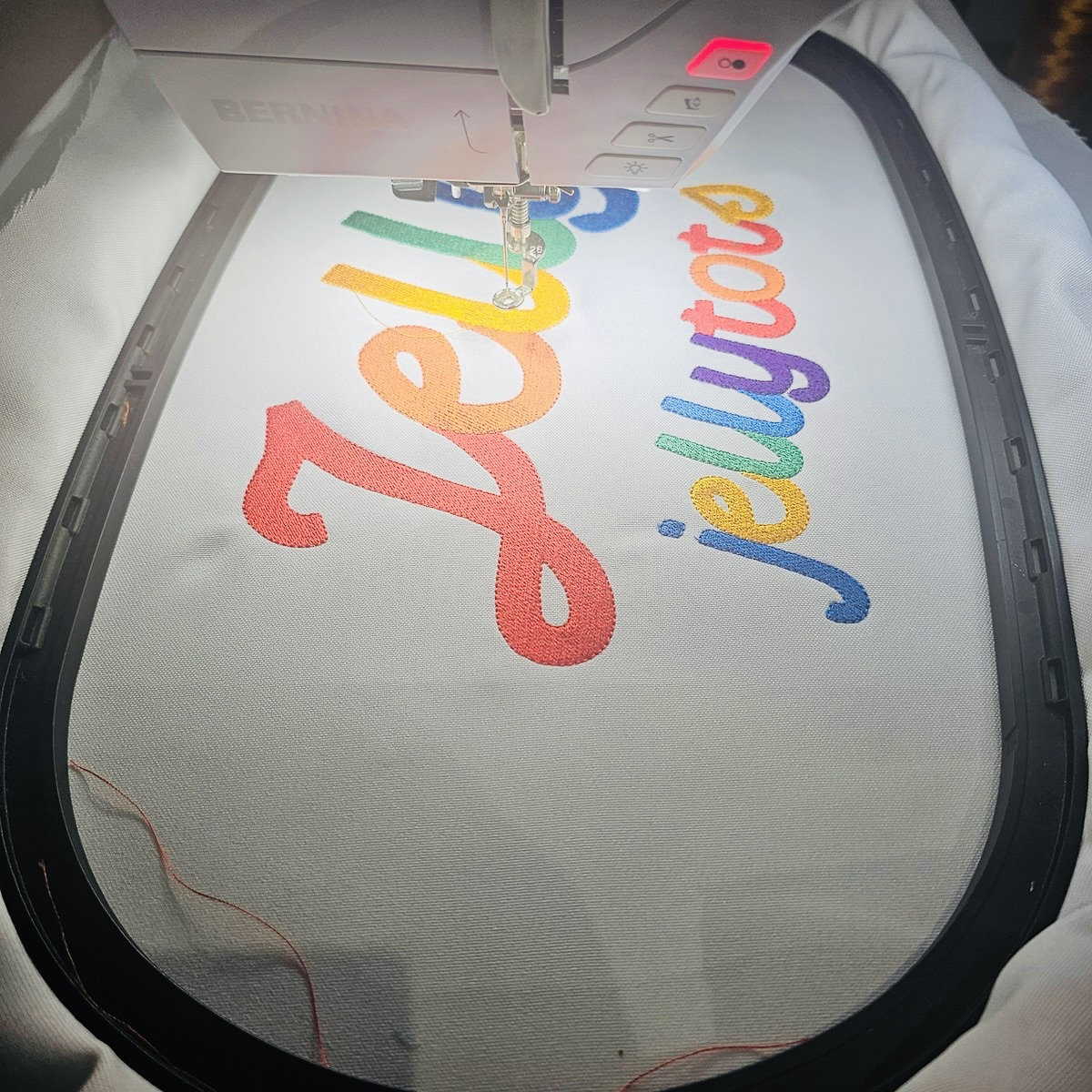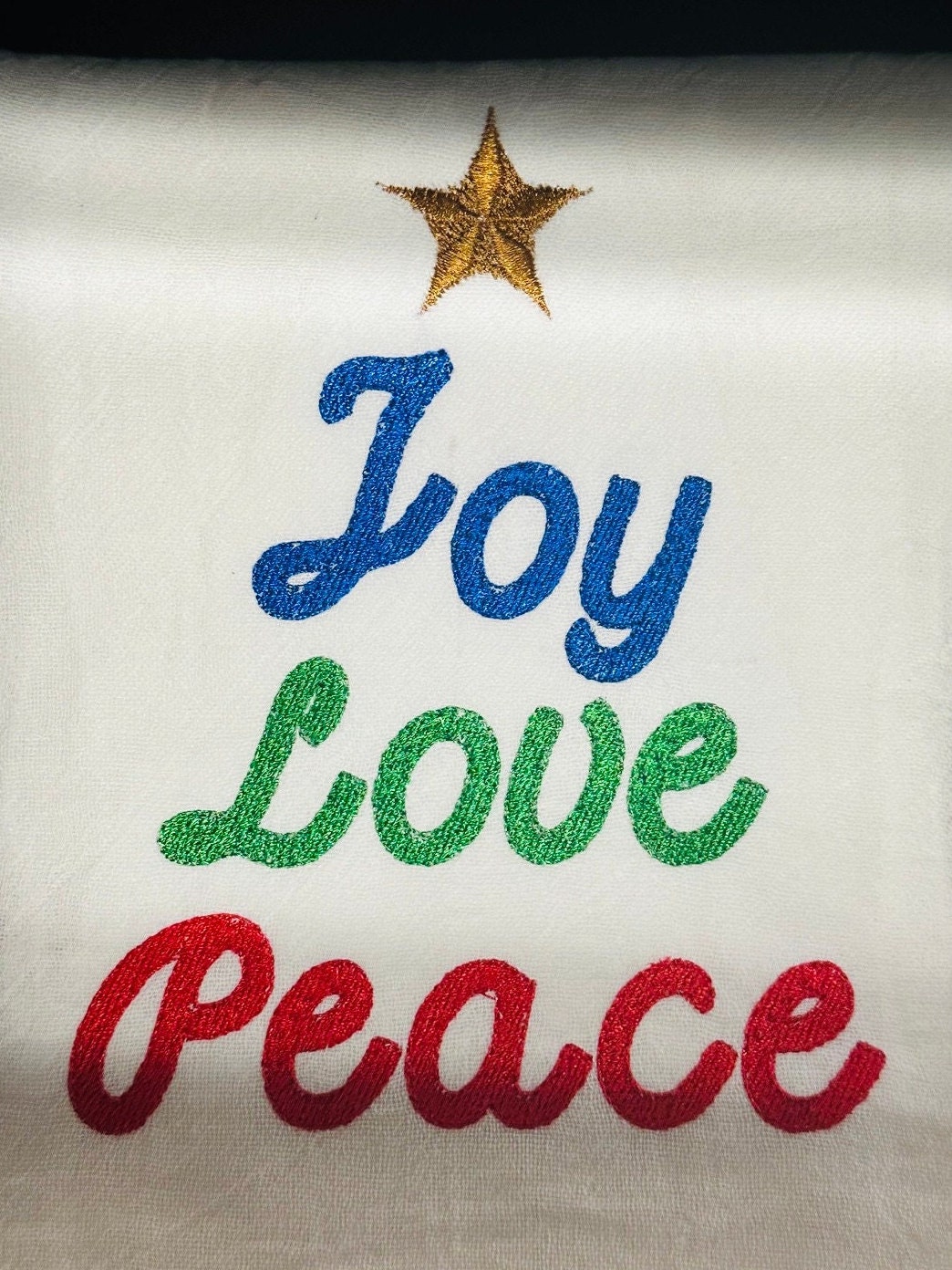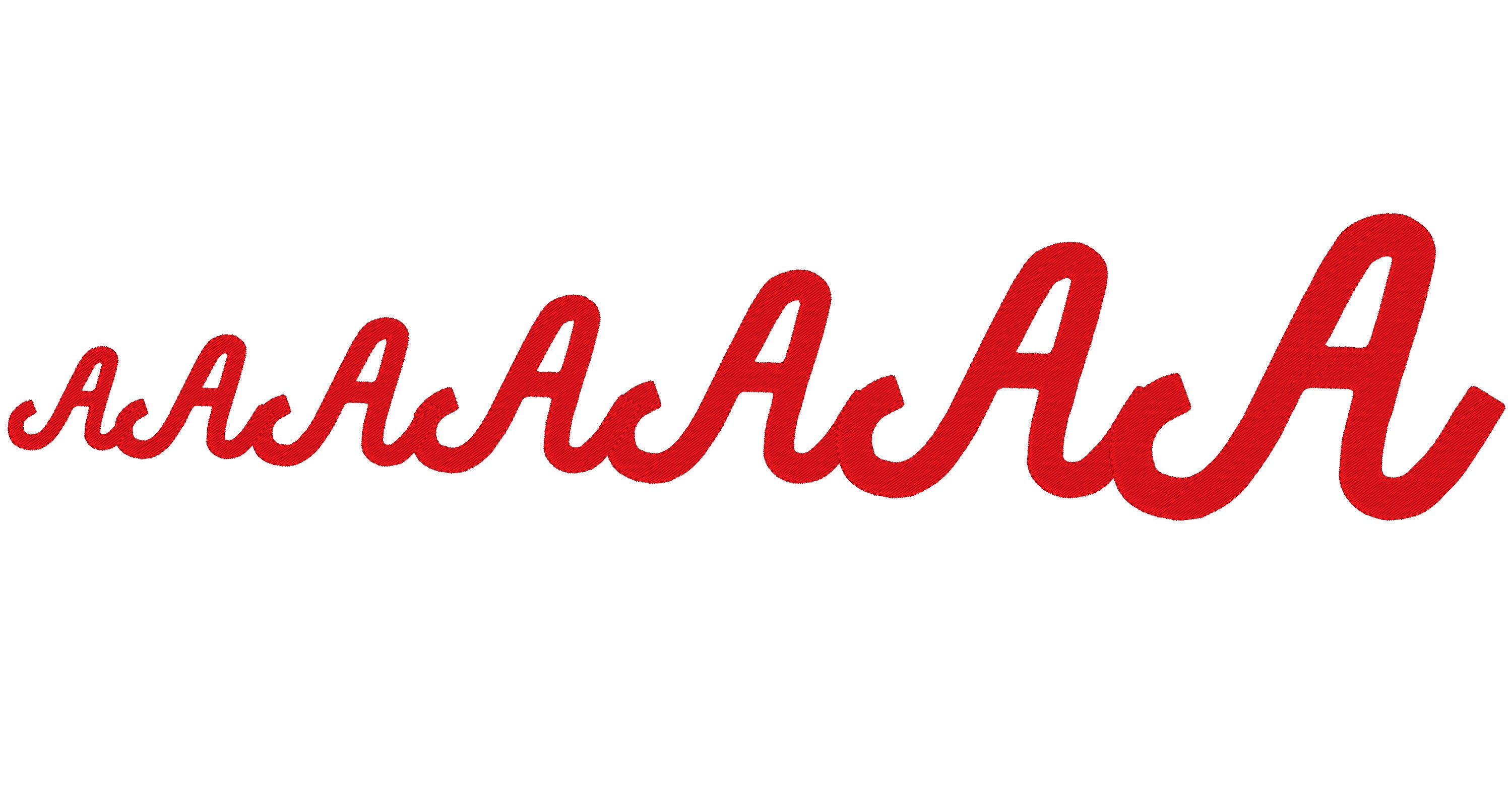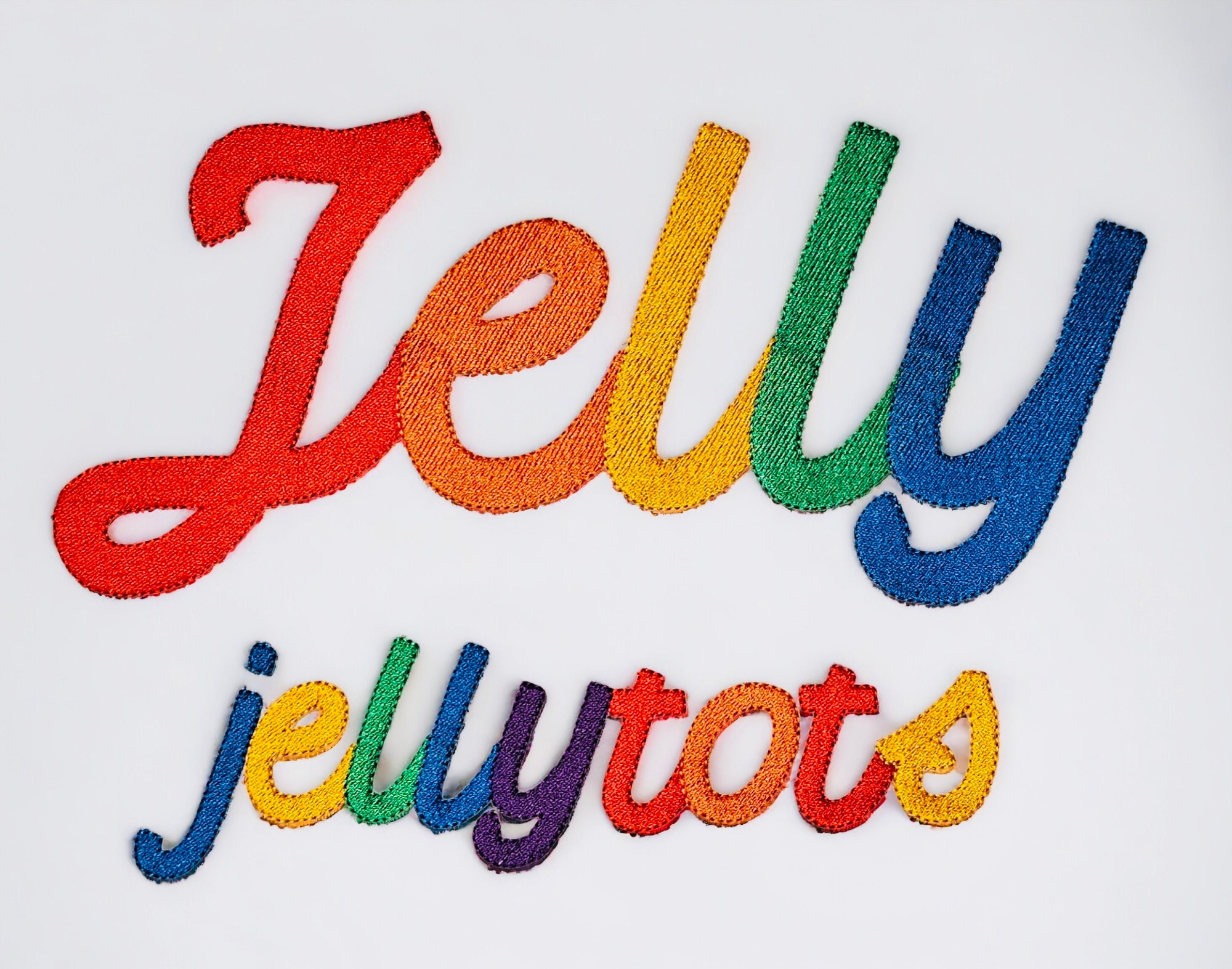
Fill stitch and outline cursive Font playful kids baby monogram name letters machine embroidery designs assorted sizes 1.3 up to 4 inches
Whole alphabet A-Z uppercase and lowercase letters, and numbers.